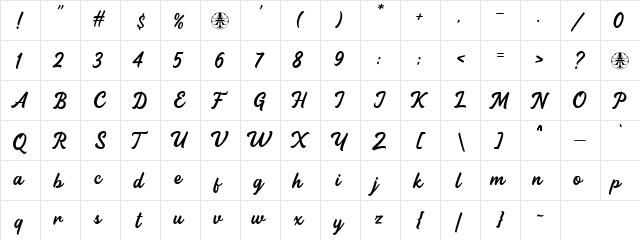
Crockotten Personal Use Only Regular
Design Context for Crockotten Personal Use Only Typeface
Crockotten Personal Use Only is a composed and adaptable typeface that performs quietly and consistently across a wide range of design contexts.
Pro Tip: Use Crockotten Personal Use Only in both headline and body roles to test its range before committing to a single application.